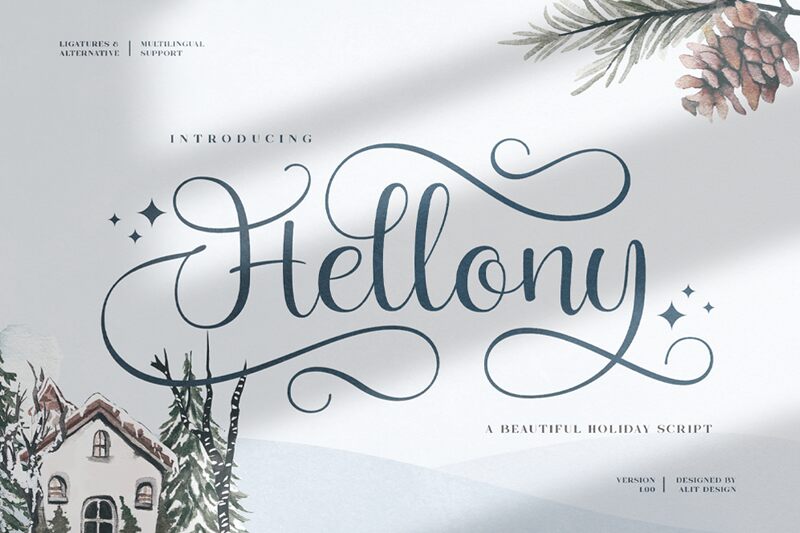
Hellony free vertion Regular
Introducing Hellony, a light calligraphy font designed by Alit Suarnegara. With its elegant and artistic strokes, it's perfect for creating eye-catching logos and invitations, as well as beautiful stationery.